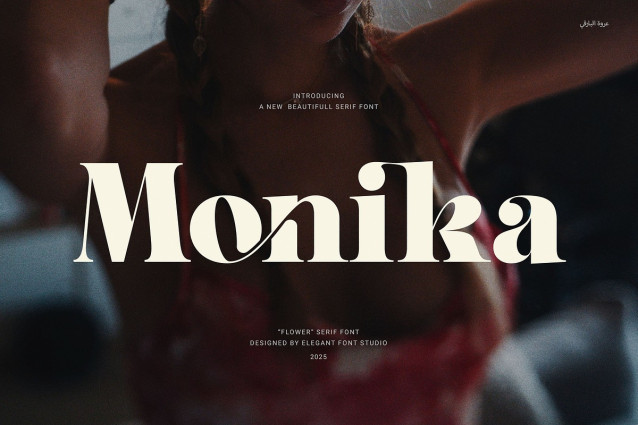
Monika Font
Monika Font – Elegant Serif Font combines modern design with classic elegance. Its proportional shapes and smooth ligatures bring beauty and clarity to every project. This font works perfectly for logos, websites, magazines, layouts, product packaging, and ads.
You can use Monika across many industries, including boutiques, food brands, fashion, and corporate businesses. It balances style and readability so your message stands out in both print and digital formats. The clean letterforms and ligatures create a smooth flow, adding charm and professionalism to your work.